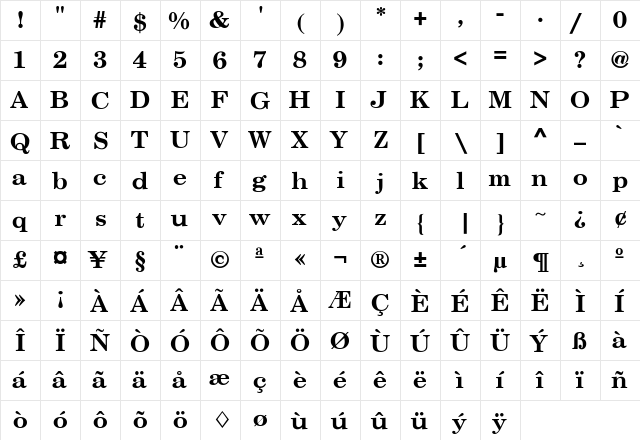
Century Schoolbook Regular Font Preview
Century Schoolbook Regular
Century Schoolbook Regular Font Details
Design Context for Century Schoolbook Typeface
Century Schoolbook offers clean, dependable letterforms without strong stylistic allegiance, making it a practical choice for designers who need flexibility.